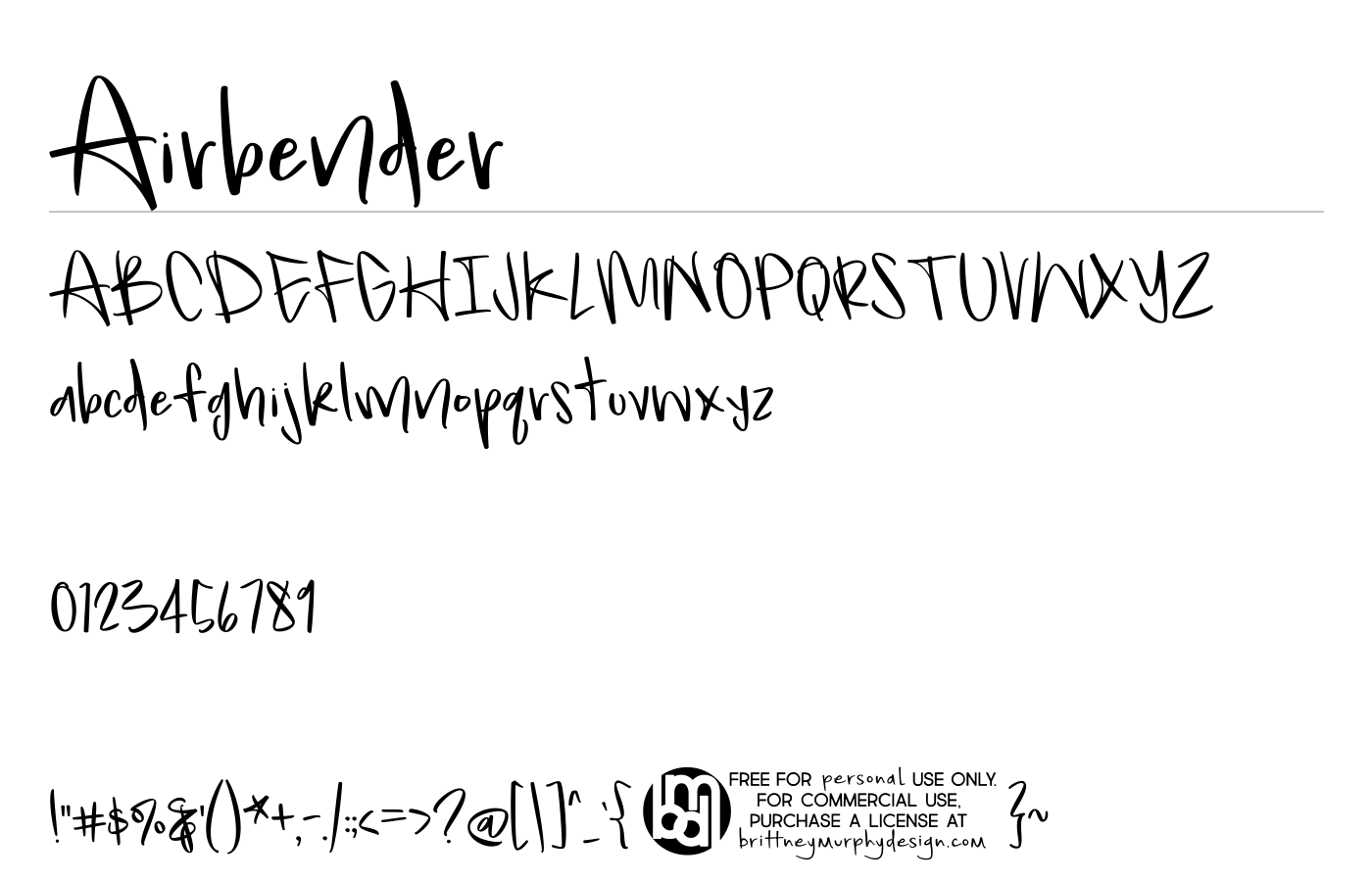
Airbender is a playful, handwritten sans serif font with a casual and friendly vibe. Its tall, narrow letterforms and slight irregularities give it an approachable and organic feel, perfect for creative projects that want to convey warmth and personality. This font works especially well for informal branding, invitations, and headlines that need a youthful, whimsical touch.
Airbender Font
About Airbender Font
| Font family | Airbender Font |
| Designer | Brittney Murphy |